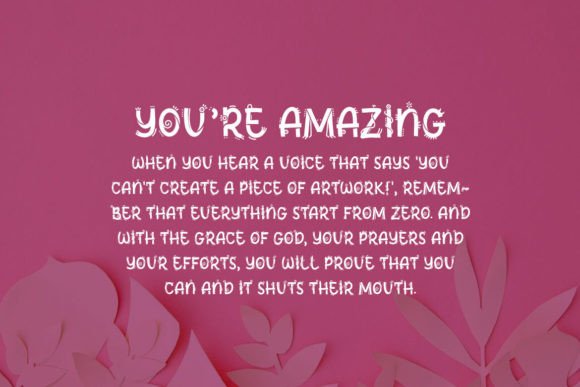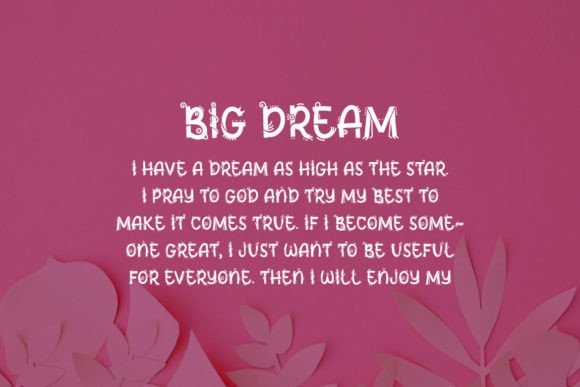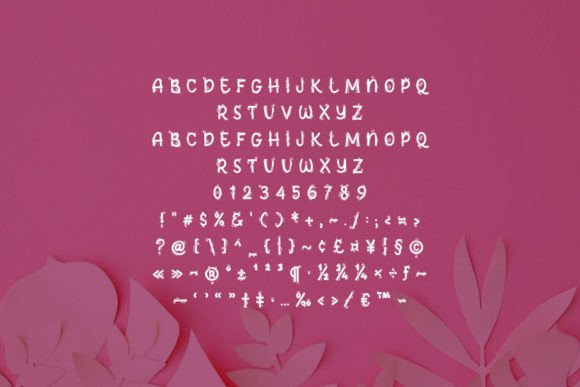
Introduction to Fanwosh Font
Introducing **Fanwosh** – a delightful and versatile display font perfect for adding a touch of playfulness to any project.
| 👤 Author | Mightyfire |
Crafted with care and creativity, this font brings a sense of fun and whimsy to your designs With its unique and quirky letterforms, **Fanwosh** is ideal for a variety of applications, from greeting cards and invitations to posters and signage.
Key Features of Fanwosh Font
Why Choose Fanwosh Font?
Fanwosh Font offers exceptional quality and versatility, making it a valuable addition to your design toolkit. Whether you’re creating for personal projects or commercial use, Fanwosh Font delivers professional results.